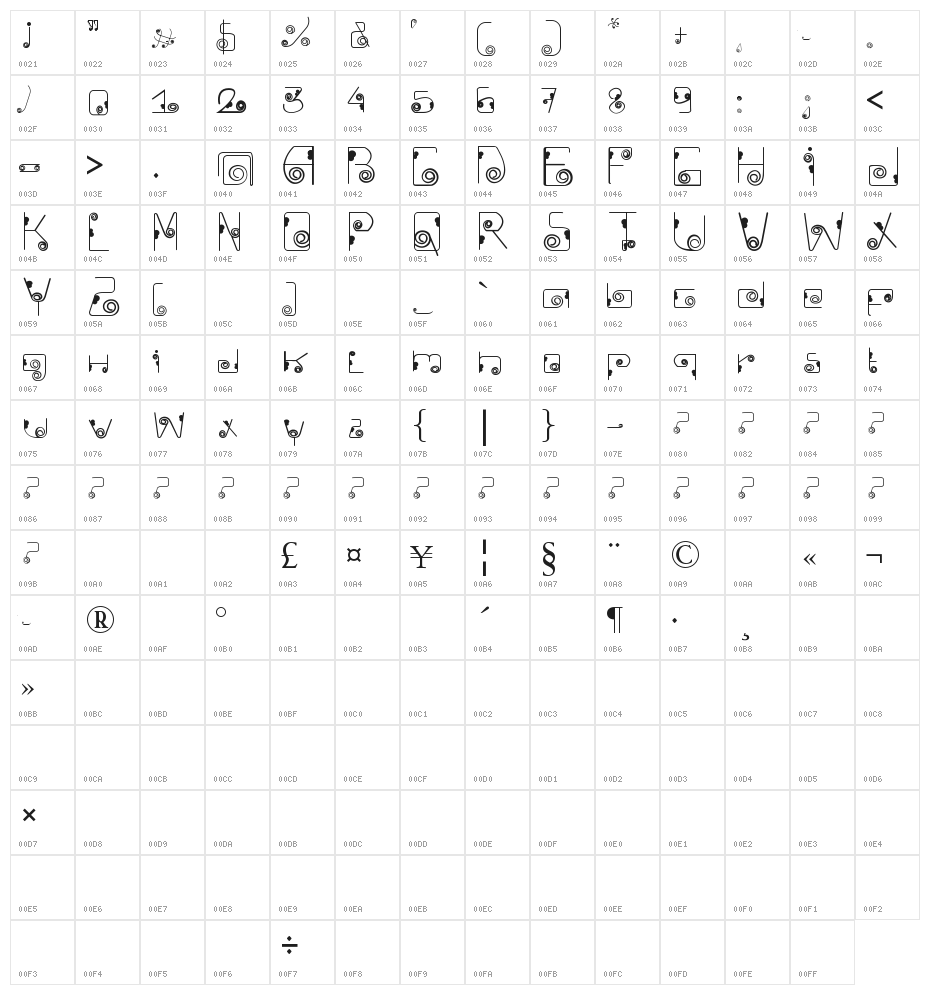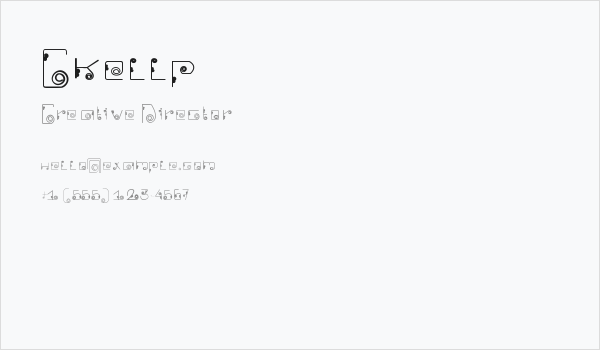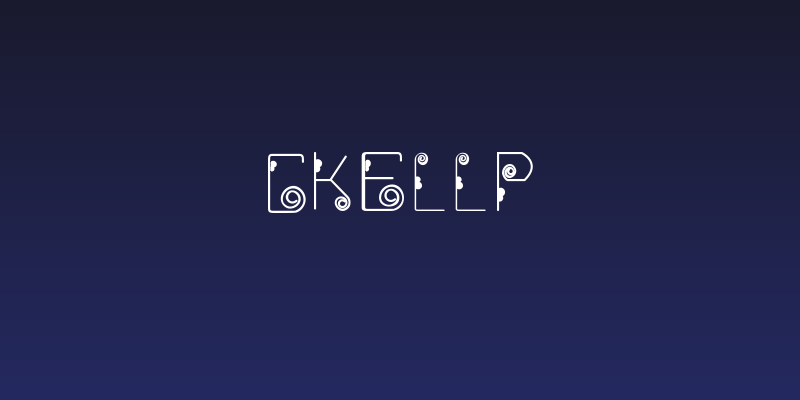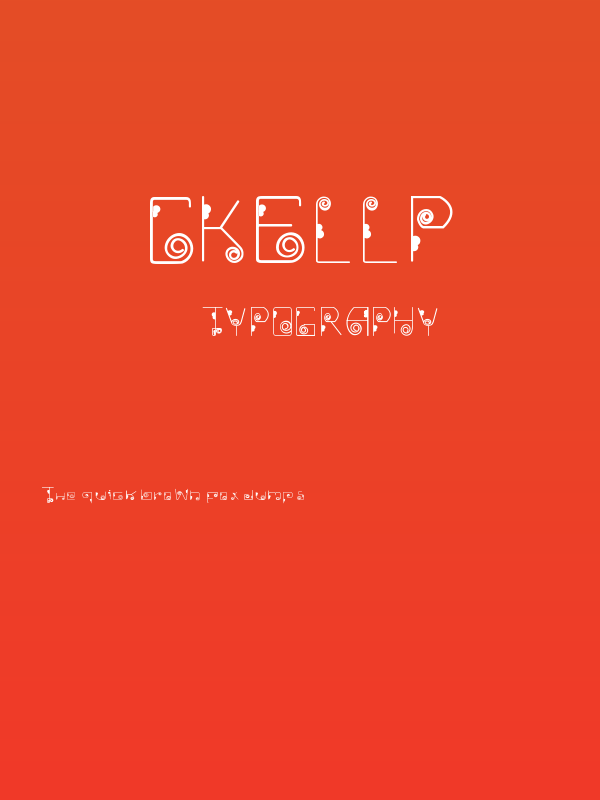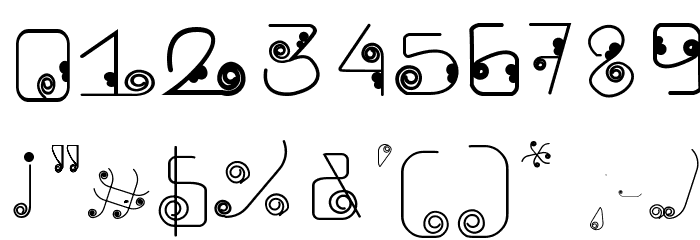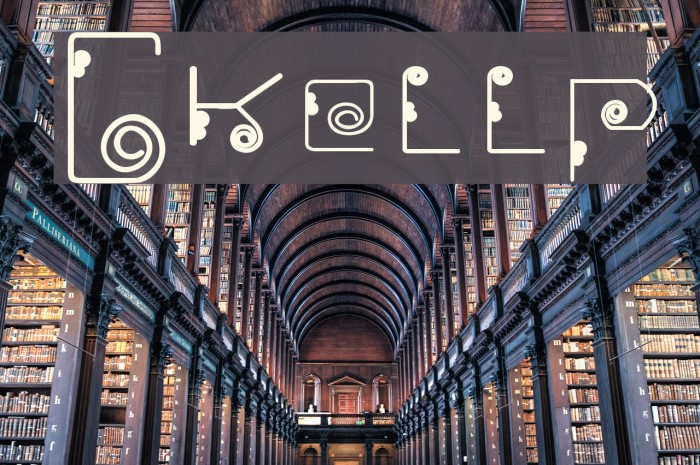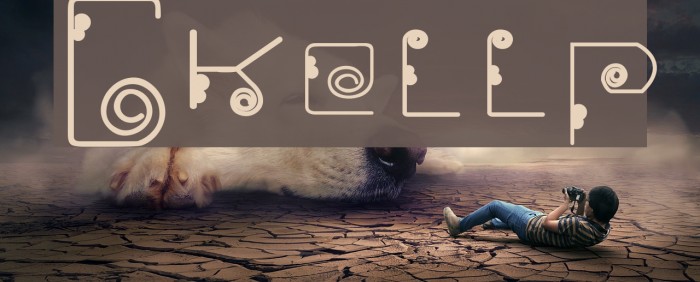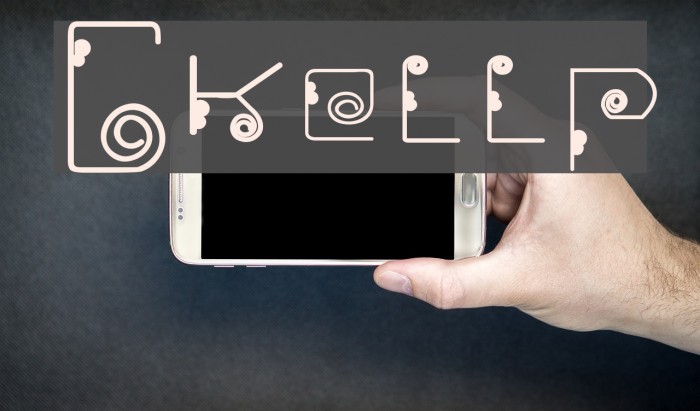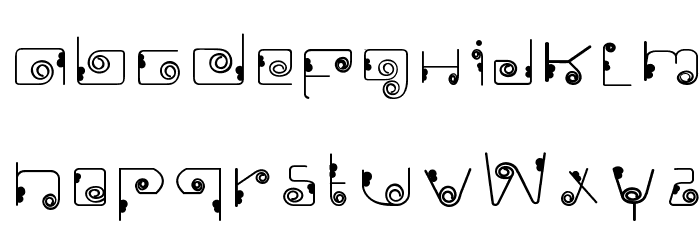
Ckellp Font
Ckellp Description
This font features a whimsical and decorative style, characterized by its unique spiral and leaf-like embellishments integrated into each character. The uppercase and lowercase letters maintain a consistent design theme, with intricate details that add a playful yet sophisticated touch. The numerals and special characters follow the same artistic pattern, making the font cohesive and visually engaging. Its distinct style makes it stand out, offering a creative flair that is both modern and artistic. The font's design is perfect for projects that require a touch of elegance and creativity, such as invitations, posters, and branding materials.
CKELLP UPPERCASE
CKELLP LOWERCASE
CKELLP OTHER CHARS